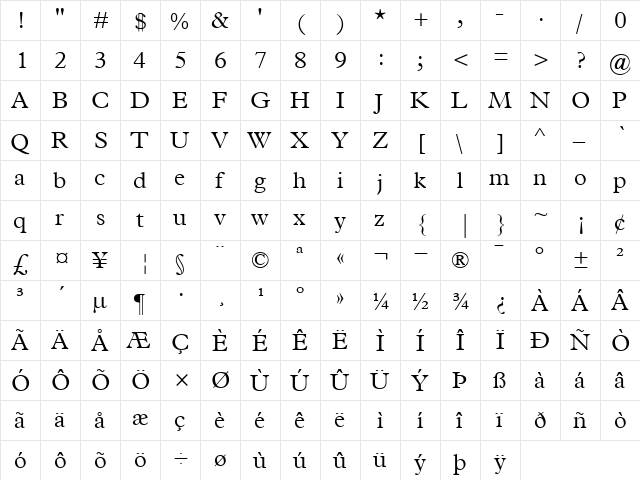
Plantin-Light Light
Design Context for Plantin-Light Typeface
Plantin-Light takes a measured approach to typography — its balanced proportions and neutral character make it a reliable workhorse for both digital and print work. Its slender proportions lend an understated elegance to any composition.